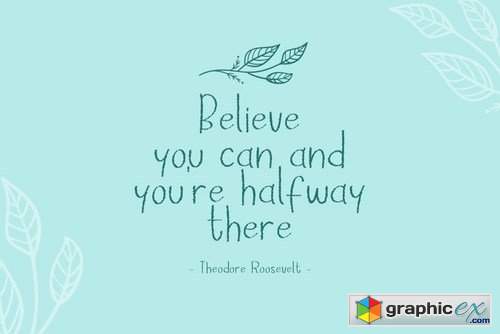
Blue Pledge
The Blue Pledge is a fun display font, fresh & modern style. Blue Pledge font with two different style, regular & rough. Blue Pledge Font suitable for logo, branding, greeting card, poster and any design that you create.